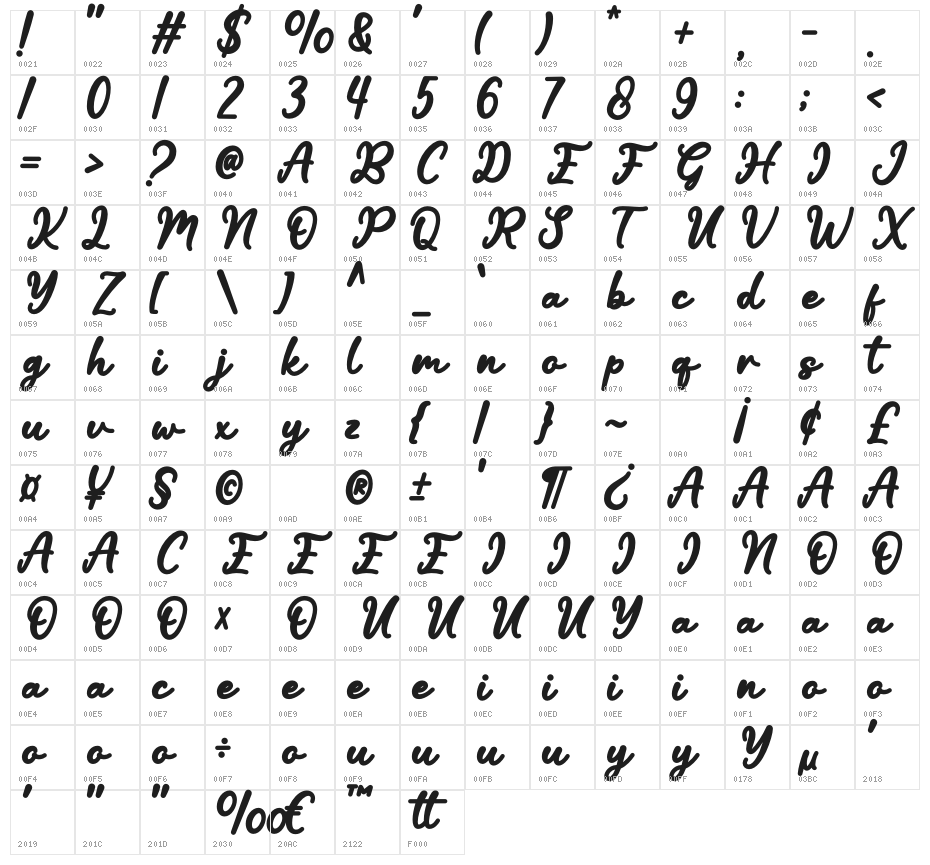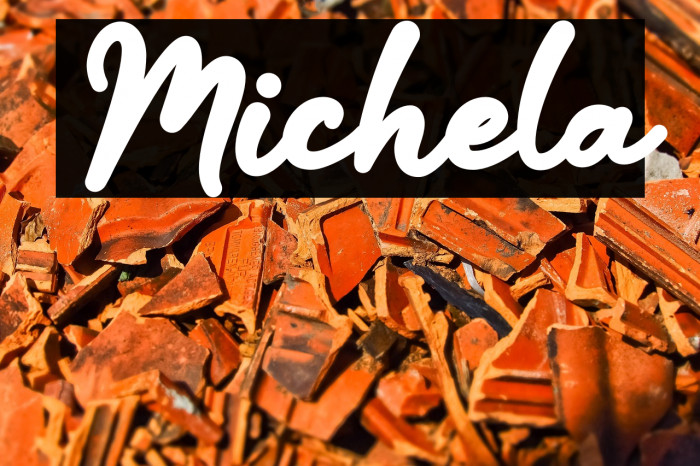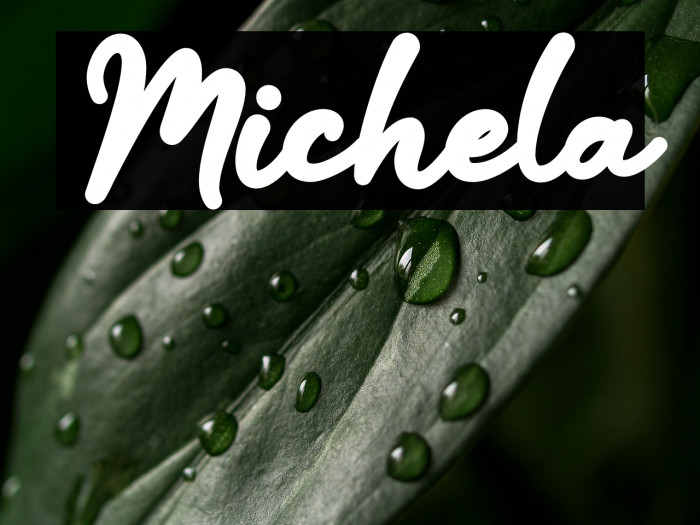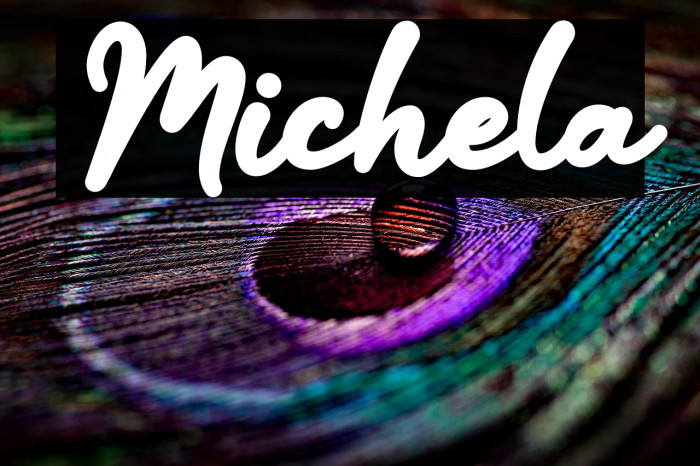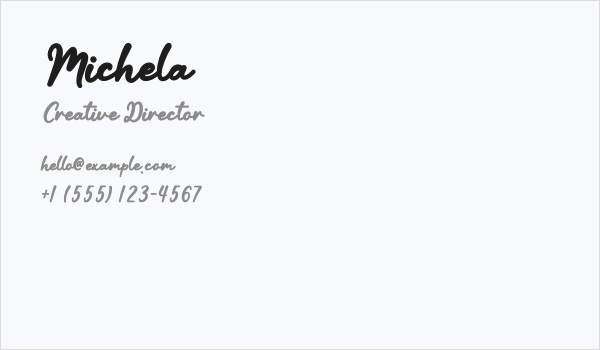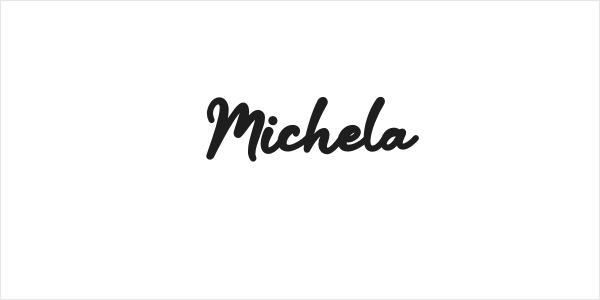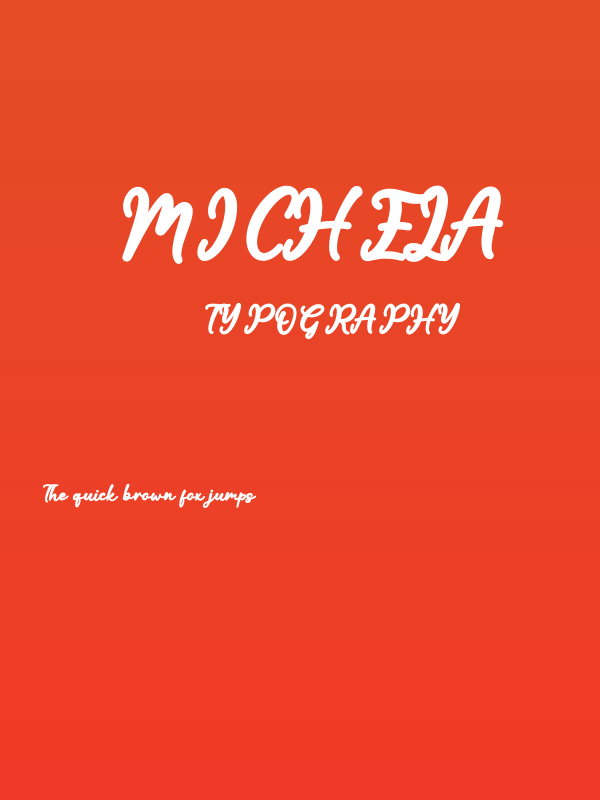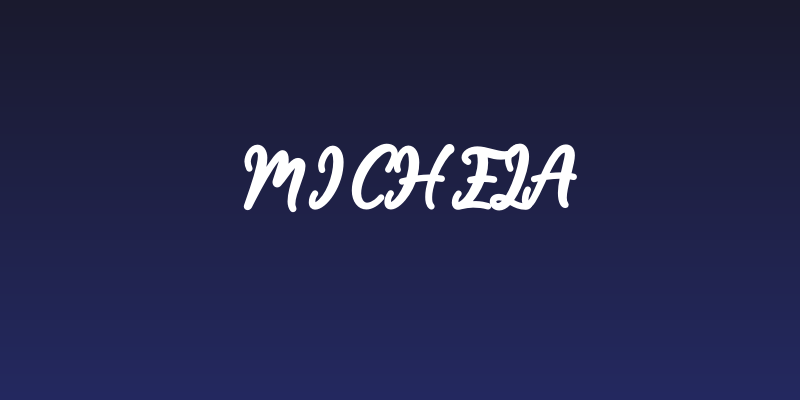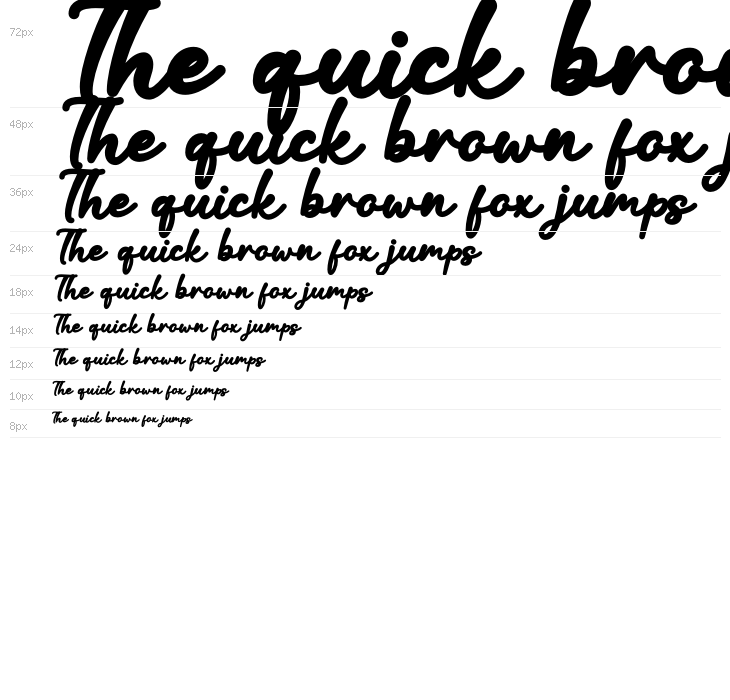
Michela Font
Michela Description
A bold, cursive script font with smooth, flowing lines and connected characters, giving it a handwritten appearance.
| Use Case | Logos, Invitations, Greeting cards |
| Proposed Projects | Invitations, greeting cards, logos, personal branding. |